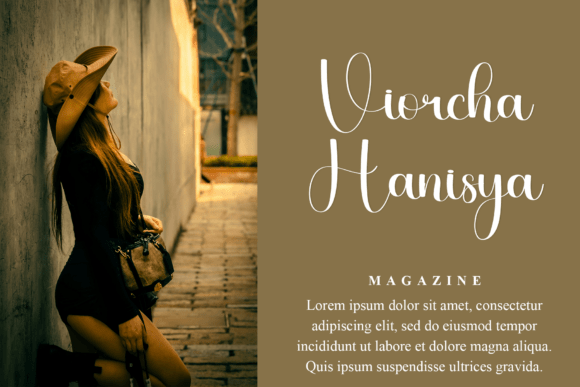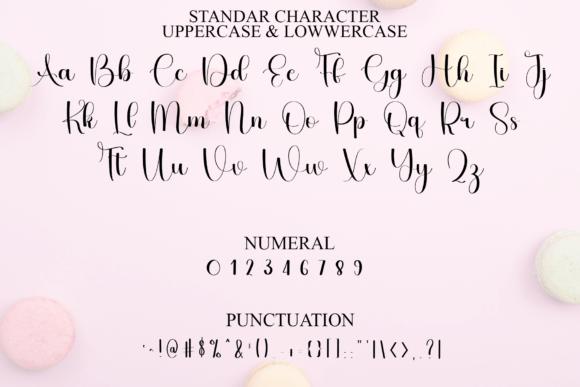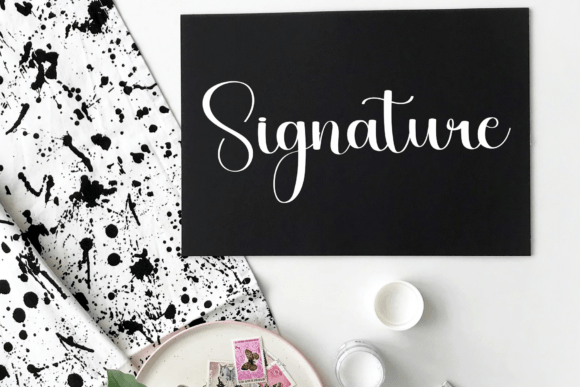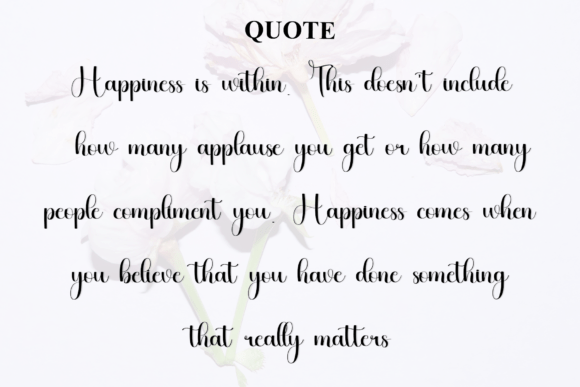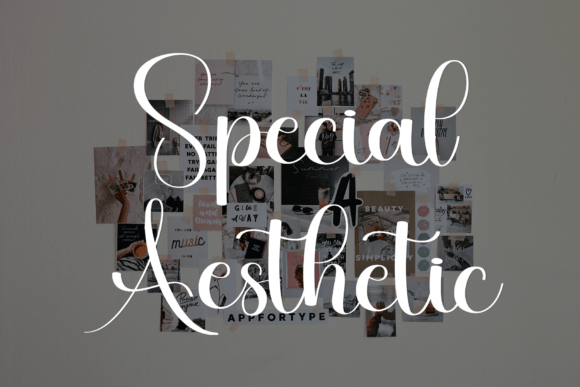
A Fresh Take on Typography: Introducing the Aesthetic Font
You know that moment when you’re brainstorming a creative project and you stumble upon the perfect font? The one that makes your design come alive and transports you to a world of possibilities? That’s exactly what happens when you discover the Aesthetic Font.
This charming, casual font is designed to evoke warmth and friendliness, making it perfect for personal projects, invitations, and social media graphics. Its round, playful strokes create a relaxed and approachable feel that’s hard to resist. Whether you’re a seasoned designer or a creative enthusiast, the Aesthetic Font is a valuable addition to your toolkit.
- Unique Characteristics: Aesthetic Font features a unique blend of elegant and modern elements, with subtle flair and curves, making it perfect for creative projects.
Aesthetic Font Review
Aesthetic Font is a beautiful and elegant font that can elevate any design. I love how it✨ adds a touch of sophistication and refinement to digital products. The font is clean, modern, and easy to read, making it perfect for body text and headings.
- ✨ Beautiful and elegant design
- ✨ Easy to read and use for body text and headings
- ✨ Suitable for digital products, such as websites and mobile apps
- ⚠️ Limited character set, which may not support certain languages
- ⚠️ Not ideal for large blocks of text, as it may become difficult to read
- ⚠️ May not be suitable for displays with low resolution or pixel density
Overall, Aesthetic Font is a great choice for designers who want to add a touch of elegance and sophistication to their designs. While it has some limitations, it’s a versatile and beautiful font that can be used in a variety of contexts. Just be sure to test it thoroughly and consider its limitations before using it in your next project.
Aesthetic Font is ideal for:
- Creative typography and art
- High-end marketing materials